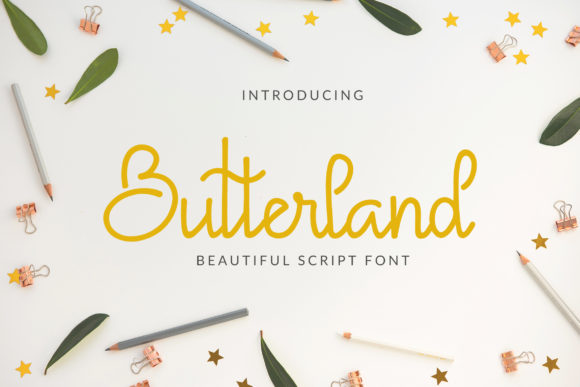
The Butterland Font: A Timeless Elegance for Creative Projects
I’ll never forget the time I was working on a branding project for a luxury wedding planner. My client was adamant about finding the perfect font that exuded elegance and sophistication. I scoured the internet, tried out countless fonts, but nothing seemed quite right. That was until I stumbled upon the Butterland font. Its smooth, legible script and classical look instantly won me over. I knew right then and there that it was the perfect fit for my client’s project.
An Honest Review of Butterland Font
What I Love About Butterland Font
- ✨ Smooth and Legible Script: The Butterland font boasts a beautiful, flowing script that’s easy on the eyes.
- ✅ Elegant and Classic Look: Its timeless design makes it perfect for projects that require a touch of sophistication.
- 💼 Versatile: From branding and marketing to advertising and invitations, Butterland font is a versatile choice that can adapt to various design needs.
While the Butterland font is an excellent choice, there are a few things to keep in mind:
- 🤔 Limited Use of All Caps: While the font looks stunning in title case, it may not be the best choice for all-caps headings. Be mindful of the font’s design limitations.
- ⚠️ Glyph Limitations: Some users have reported limited glyph options, which may restrict the font’s use in certain design projects.
The Story Behind Butterland Font
The Butterland font was designed with the intention of creating a timeless, elegant script that would evoke a sense of sophistication and luxury. The designer, inspired by classic calligraphy and elegant typography, aimed to create a font that would be both versatile and beautiful.
| What is the Butterland font best used for? | The Butterland font is perfect for branding, marketing, advertising, invitations, and more. Its elegant and classic look makes it suitable for projects that require a touch of sophistication. |
| Is the Butterland font suitable for body text? | While the Butterland font is beautiful, it’s best used for headings, titles, or short paragraphs. Its elegant design may not be suitable for long blocks of body text. |